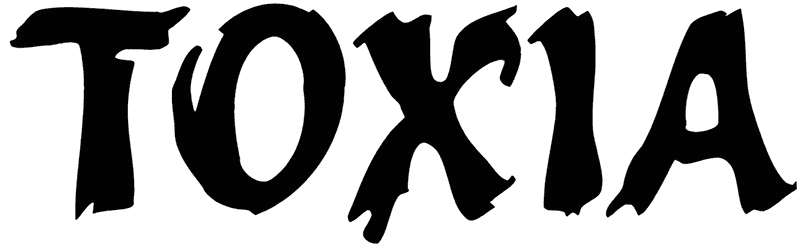
Toxia Font
Toxia is a well-designed horror font that immediately impresses your audience. This fancy font has a dark theme and seems memorable. The horror font may be helpful in several situations, such as posters, flyers, and mess book covers. This font’s letters seem a bit eroded and have sharp edges, creating a horrifying feeling. So download this scary font to give the viewers a new experience.
Toxia by Michael G Adkins
Want something poisonous to hide in your letterforms. A bit dangerous and dripping wet as it clambers up out of the mire?? Try some Toxia. It’s a brewed blend guaranteed to tighten your throat and leave you gasping no more.